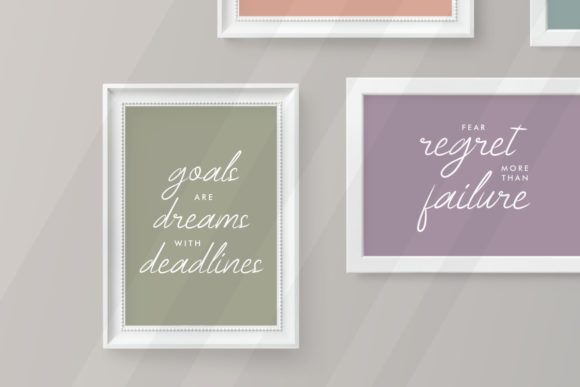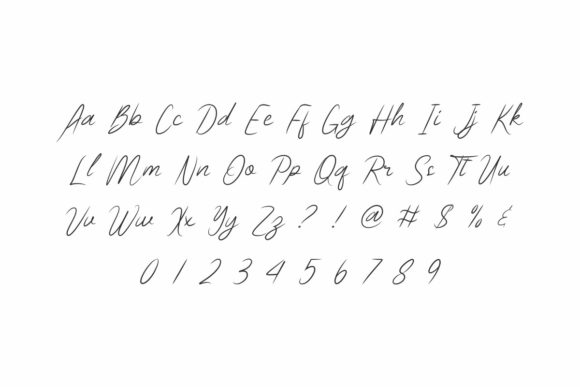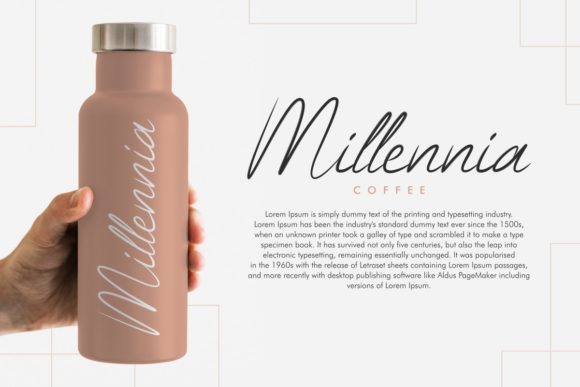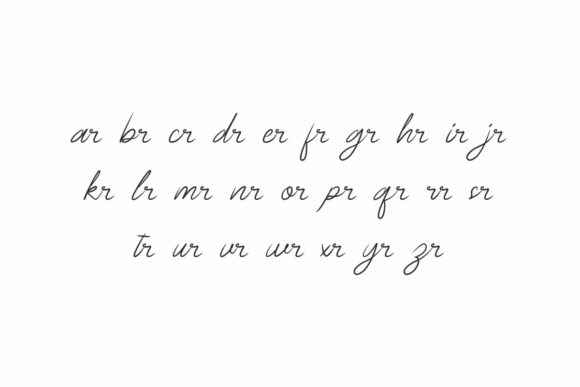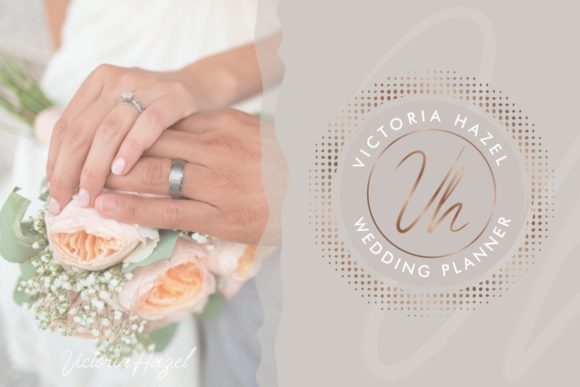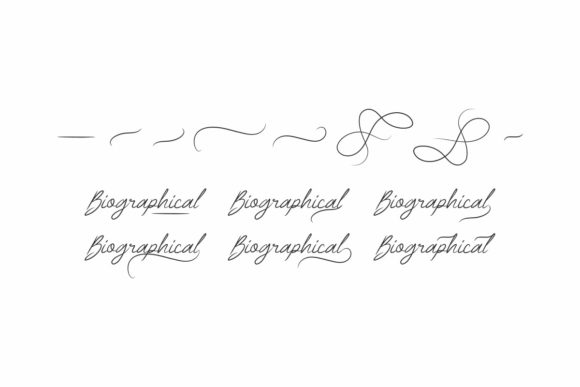
Introducing Biographical Font: A Timeless Signature Handwriting Font
In the world of typography, a well-crafted font can elevate a design project from ordinary to extraordinary. For designers and crafters seeking a stylish and elegant signature handwriting font, Biographical Font is an excellent choice. This beautiful font combines modern and classic typography, making it perfect for a wide range of creative projects.
What is Biographical Font?
Biographical Font is a stylish signature handwriting font that seamlessly blends modern and classic typography with an elegant look. Its unique design makes it an excellent choice for designers and crafters looking to add a touch of sophistication to their projects. Whether you’re working on a branding project, creating wedding invitations, or designing a logo, Biographical Font is sure to impress.
Key Features of Biographical Font
So, what makes Biographical Font stand out from other fonts? Here are some of its key features:
- PUA Encoded: Biographical Font is PUA (Private Use Area) encoded, which means you can access all of the glyphs and swashes with ease. This feature makes it easy to use and customize the font to suit your design needs.
- Elegant Design: The font boasts an elegant and sophisticated design, making it perfect for projects that require a touch of luxury and refinement.
- Modern and Classic Typography: Biographical Font combines modern and classic typography, creating a unique and distinctive look that’s both timeless and trendy.
- Signature Handwriting Style: The font has a beautiful signature handwriting style that’s perfect for creating personalized and bespoke designs.
Use Cases for Biographical Font
Biographical Font is a versatile font that can be used in a wide range of design projects, including:
- Branding and Logo Design: The font’s elegant and sophisticated design makes it perfect for creating high-end brand logos and branding materials.
- Wedding Invitations and Stationery: Biographical Font is an excellent choice for creating beautiful and elegant wedding invitations, stationery, and other paper goods.
- Packaging Design: The font’s unique design makes it perfect for packaging design, adding a touch of luxury and sophistication to product packaging.
- Digital Design: Biographical Font can also be used in digital design projects, such as website headers, social media graphics, and email newsletters.
Tips for Using Biographical Font
To get the most out of Biographical Font, here are some tips to keep in mind:
- Pair it with Other Fonts: Biographical Font looks great when paired with other fonts, such as sans-serif fonts or serif fonts. Experiment with different font combinations to find the perfect look for your project.
- Use it for Headlines and Titles: The font’s elegant design makes it perfect for headlines and titles. Use it to add a touch of sophistication to your design.
- Experiment with Swashes and Glyphs: Biographical Font’s PUA encoding means you can access a range of swashes and glyphs. Experiment with these to add a unique touch to your design.
In conclusion, Biographical Font is a stylish and elegant signature handwriting font that’s perfect for designers and crafters looking to add a touch of sophistication to their projects. Its unique design, PUA encoding, and versatility make it an excellent choice for a wide range of design projects. Whether you’re working on a branding project, creating wedding invitations, or designing a logo, Biographical Font is sure to impress.